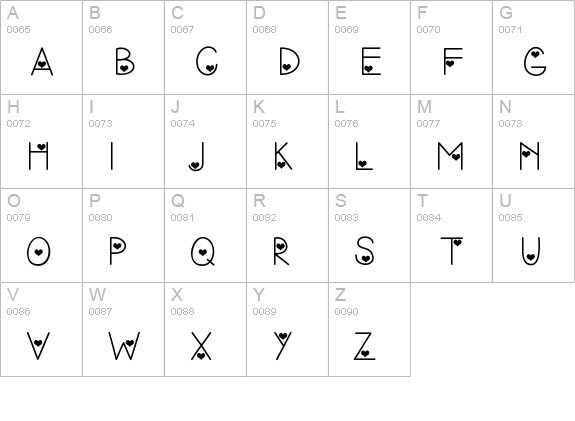
VanessasValentine Font Details
Introducing VanessasValentine font - a stunningly beautiful typeface that embodies the essence of romance and elegance. This exquisite font is perfect for adding a touch of sophistication to any project, whether it's a wedding invitation, a love letter, or a heartfelt message to a loved one. VanessasValentine features intricately designed letters that effortlessly flow together, creating a seamless and harmonious look. The delicate curves and graceful strokes make it a truly captivating font that captures the spirit of love in every character. But what sets VanessasValentine apart is not just its stunning design, but also the fact that it is available for free! Yes, you read that right - this remarkable font can be yours without costing you a penny. It is freely available to download at FontsMarket.com, a trusted source for high-quality fonts. With VanessasValentine, you can bring your romantic visions to life without breaking the bank. Whether you're designing a Valentine's Day card, creating a romantic logo, or crafting a heartfelt message, this font will add a touch of elegance and charm that is sure to impress. So why wait? Download VanessasValentine now and let your creativity soar. Whether you're a professional designer or a passionate DIY-er, this font is a must-have in your collection. Spread the love with VanessasValentine and watch as your projects come alive with romance and beauty.